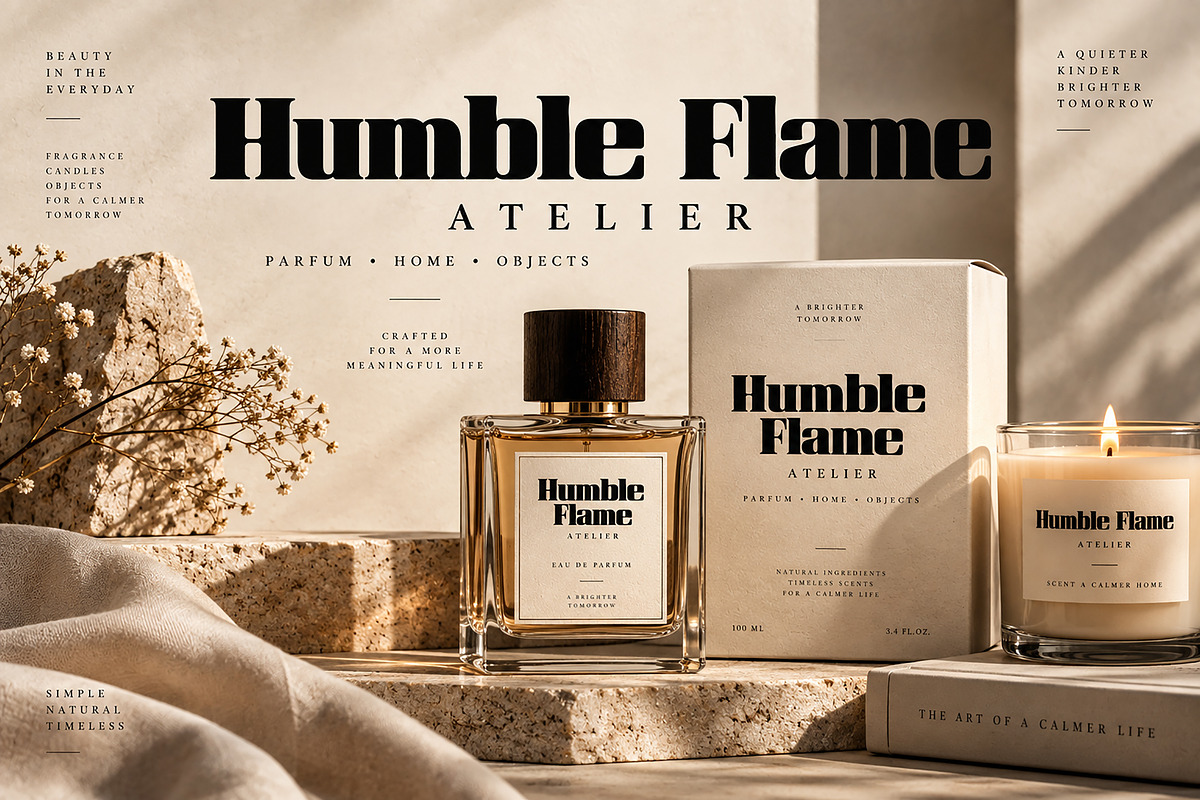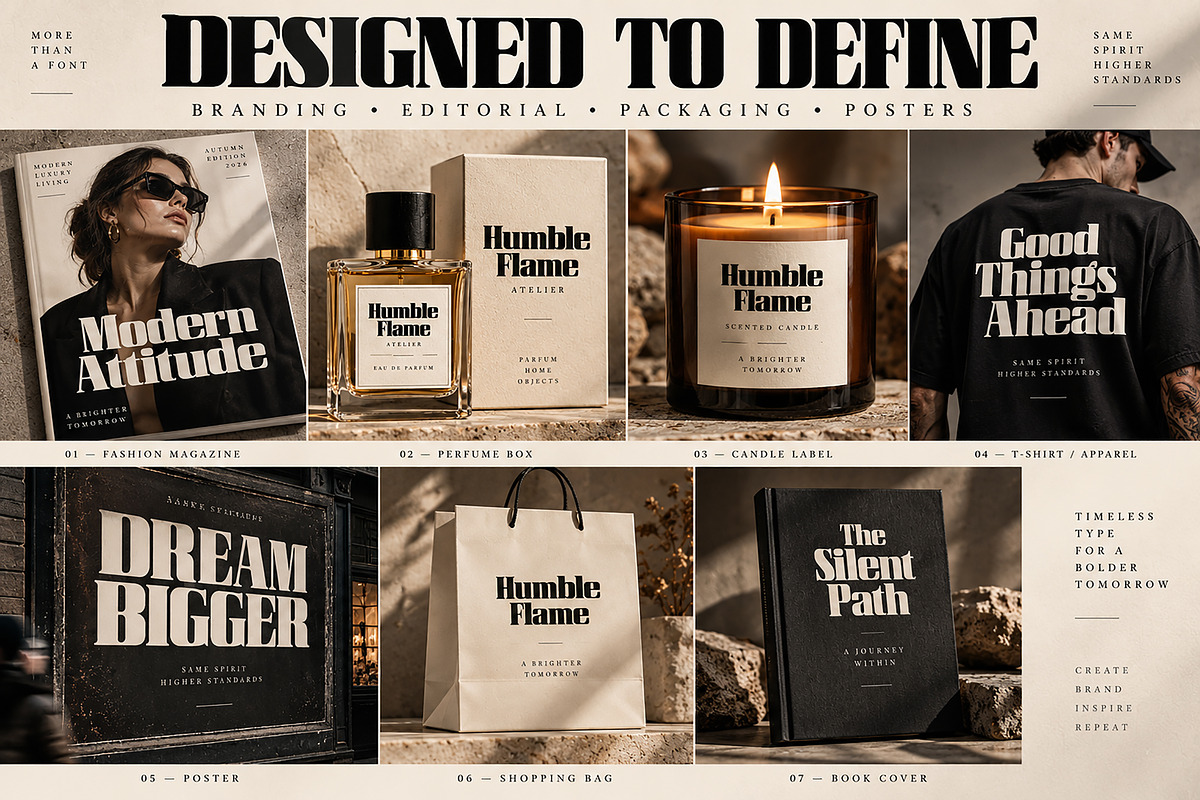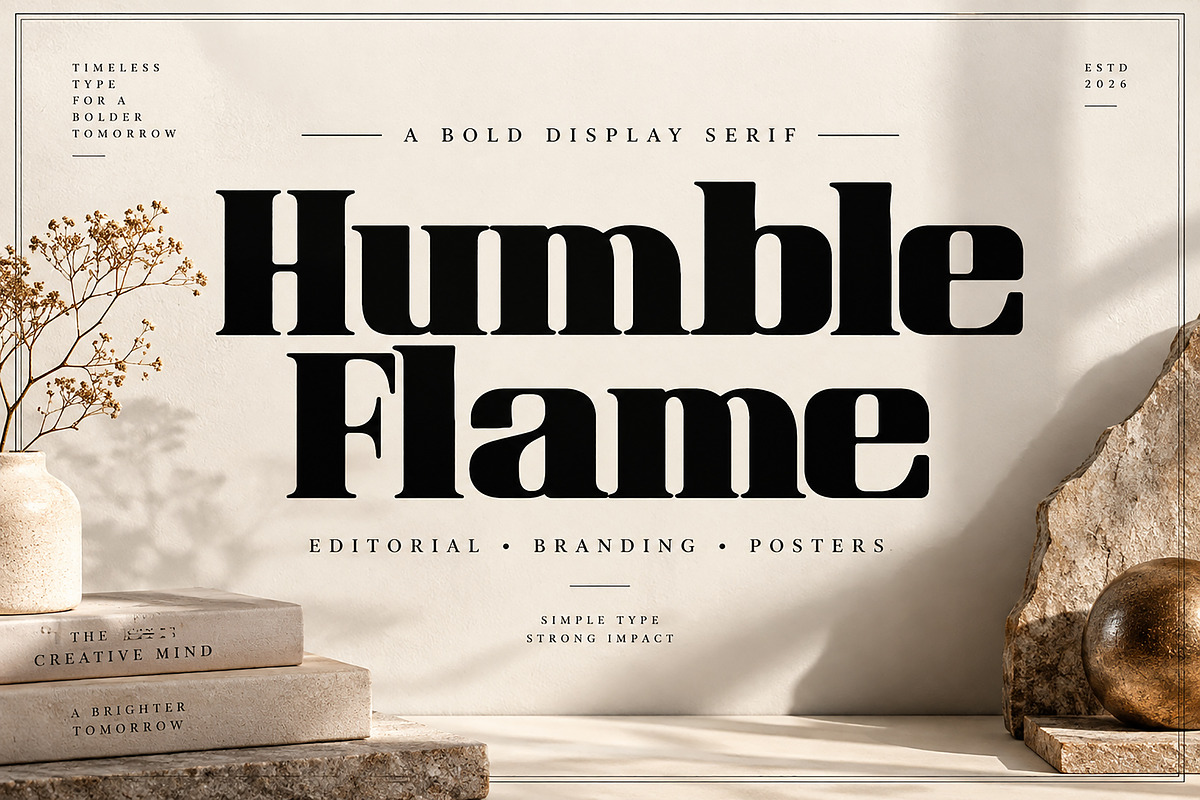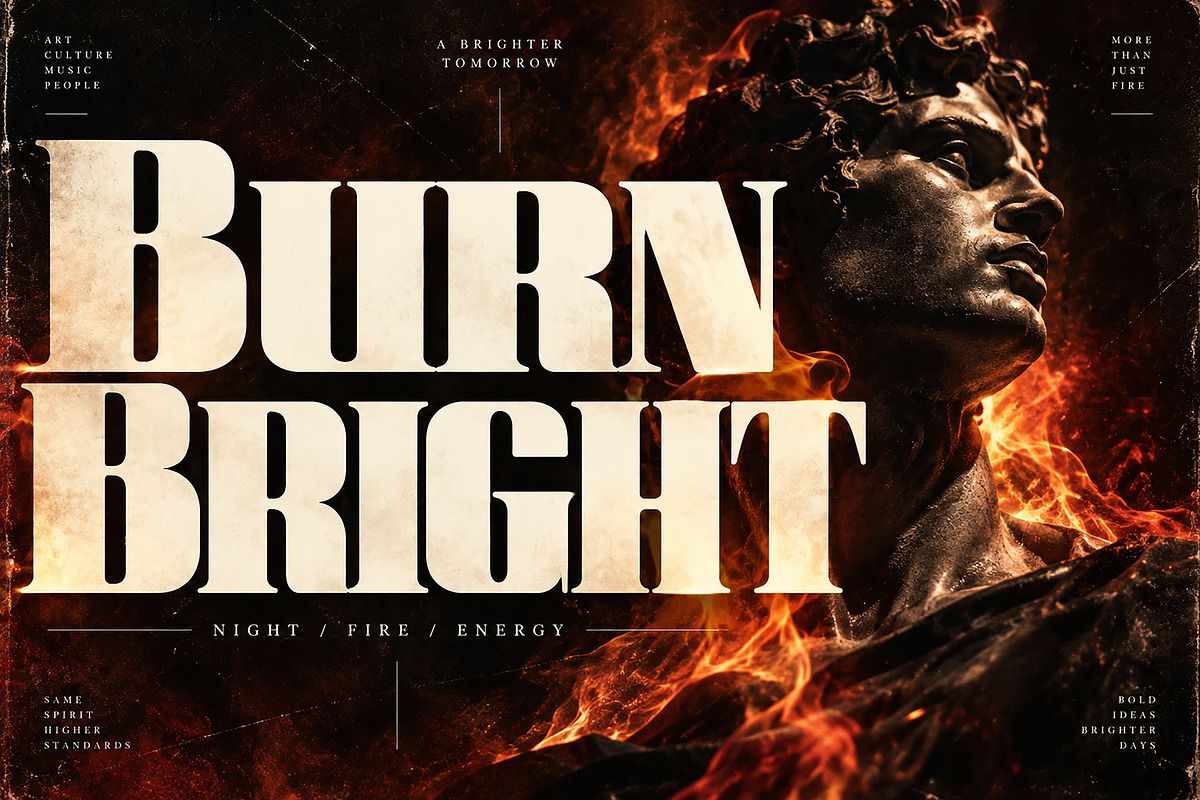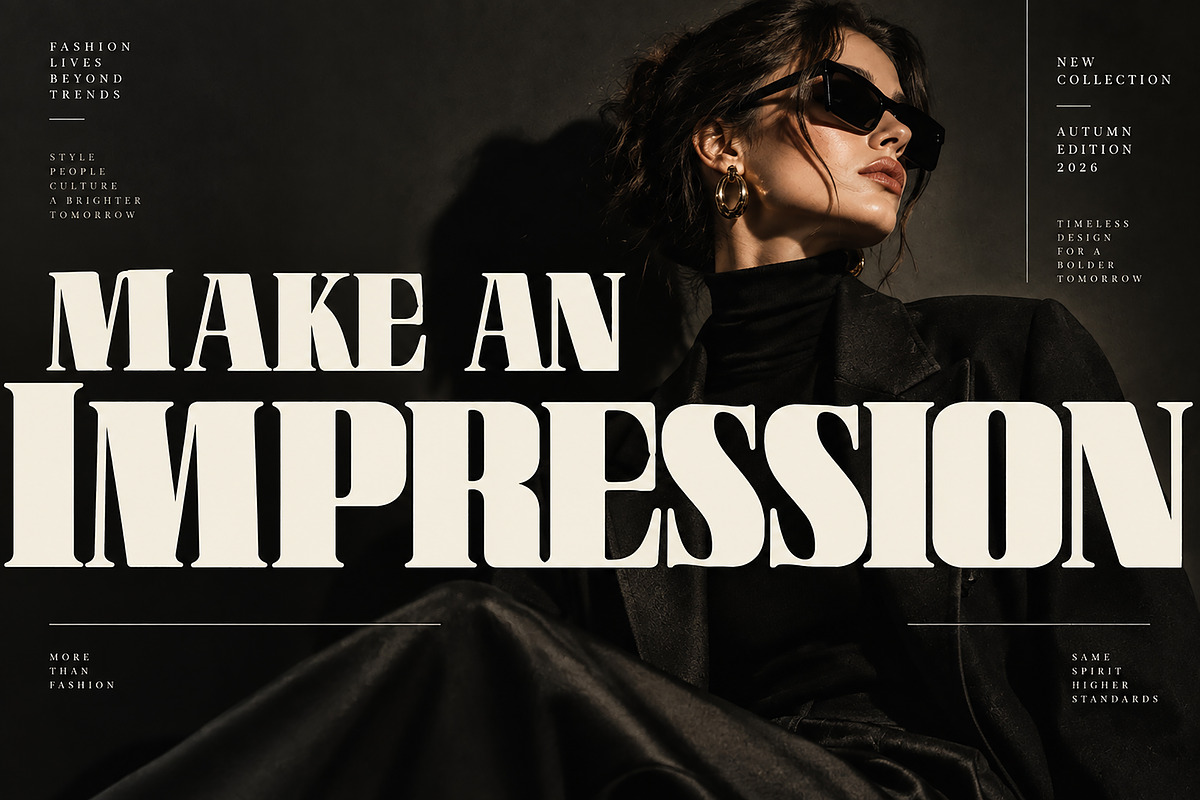
Humble Flame
Humble Flame is a bold and sophisticated display serif font designed to bring a powerful editorial presence to your creative projects. With its strong weight, elegant serif details, and high-contrast letterforms, Humble Flame creates a distinctive visual identity that feels both modern and timeless.
Perfect for designers looking to create eye-catching fashion branding, luxury logos, magazine covers, posters, packaging, editorial layouts, book covers, apparel designs, perfume branding, candle labels, and advertising campaigns.
Its commanding display style works especially well for large headlines, brand names, statements, titles, and premium visual identities where strong typography needs to make an immediate impression.
Fashion & Editorial Design
Luxury Branding & Logos
Magazine Covers
Posters & Advertising
Perfume & Beauty Packaging
Candle & Product Labels
T-Shirt & Apparel Design
Shopping Bags & Retail Branding
Invitations & Stationery
Creative Headlines & Titles
Bring a bold editorial character and refined luxury feel to your next creative project with Humble Flame.